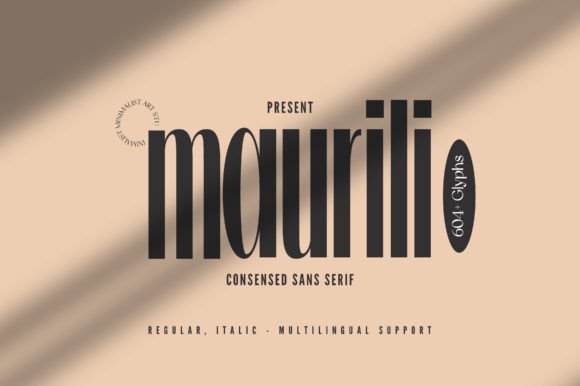
Behold Maurili, the sans-serif masterpiece that will ignite your designs with minimalism and sophistication. This font family embodies grace and poise with its condensed letterforms, painting a picture of elegance in every word you type.
Crafted by Minimalistartstudio, Maurili is a true typographic gem that will elevate your designs to new heights. Its meticulously crafted lines exude a timeless allure, making it the perfect choice for modern and contemporary aesthetics.
Experience the allure of tailored minimalism with Maurili. Its clean and crisp edges bring order to chaos, creating a visual symphony that captivates the eyes. Embrace the simplicity of its design and let Maurili infuse your designs with an air of sophistication that speaks volumes.
Transport your designs to the realm of high-end fashion and luxury products with Maurili. Its innate elegance effortlessly elevates your branding, capturing the essence of exclusivity and refinement. Let Maurili be the cornerstone of your corporate identity, adding a touch of professionalism that sets you apart.
Immerse yourself in the world of Maurili, where creativity knows no bounds. Unleash your imagination and let this font ignite your designs with its minimalist magic. Maurili is the gateway to a world of boundless possibilities, where your designs will shine brighter than ever before.